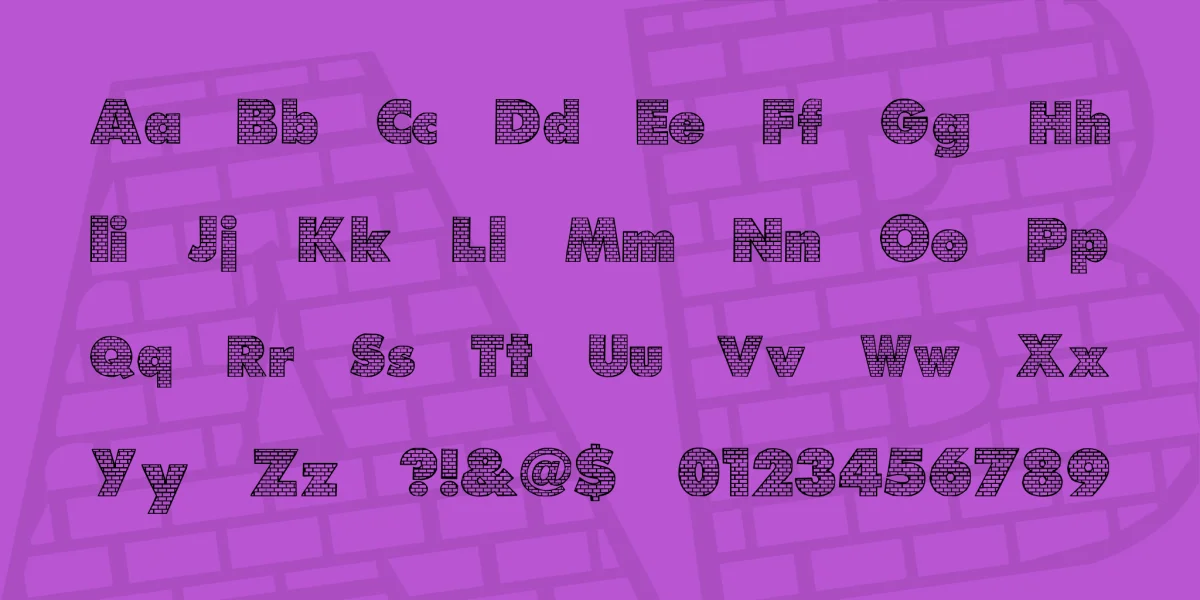
A True Type decorative ANSI font. It is recommended that this font should be used only at 24pt and above, as the brick pattern becomes distorted in smaller sizes.